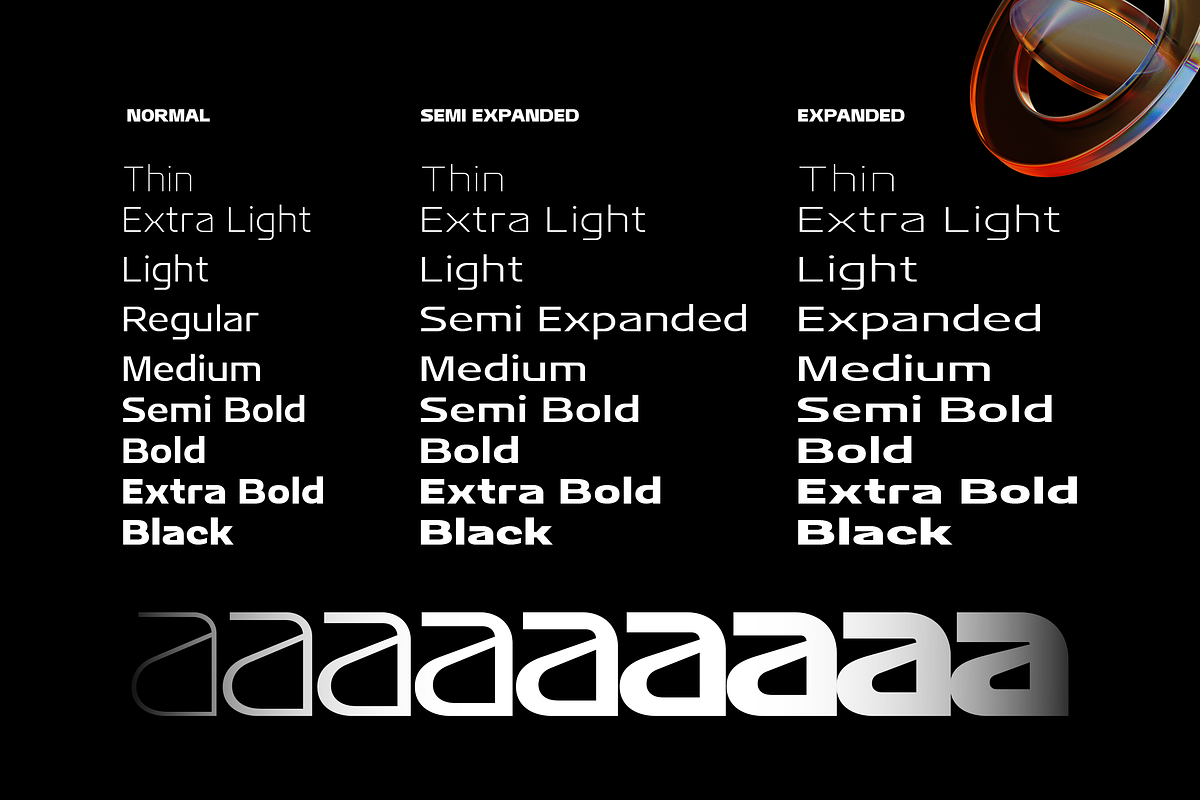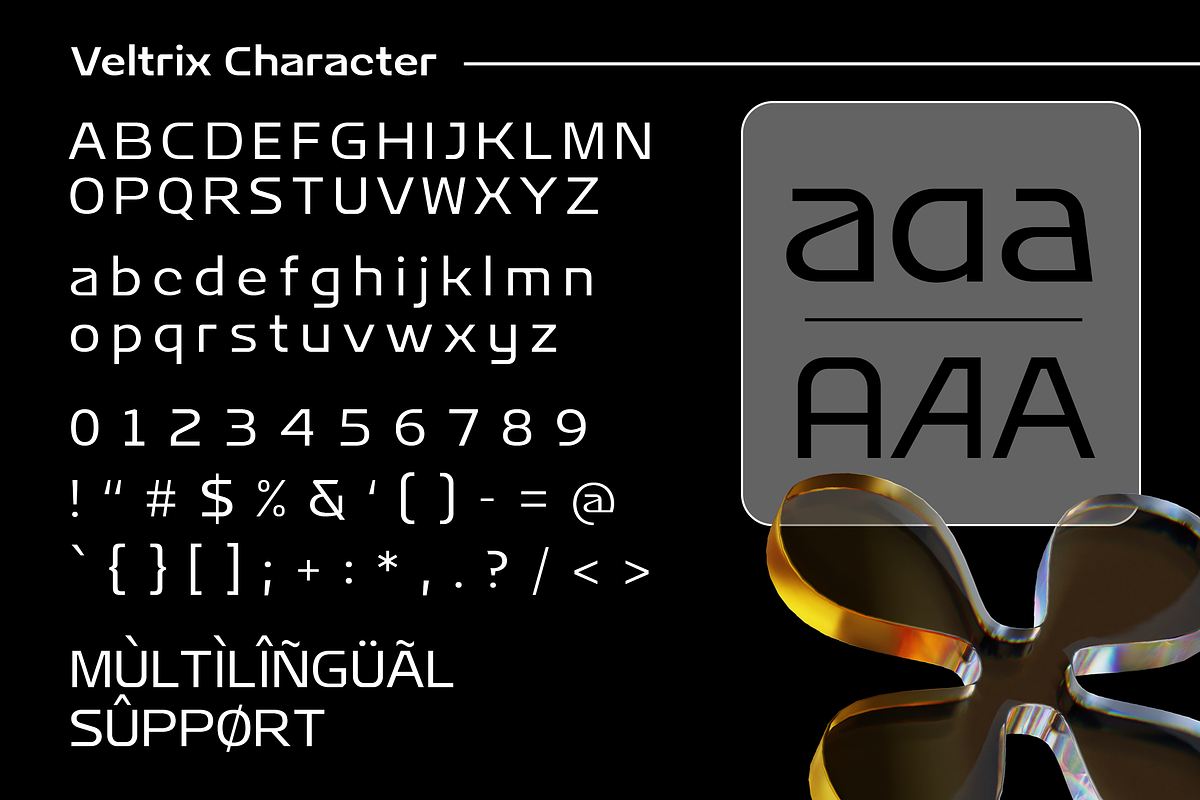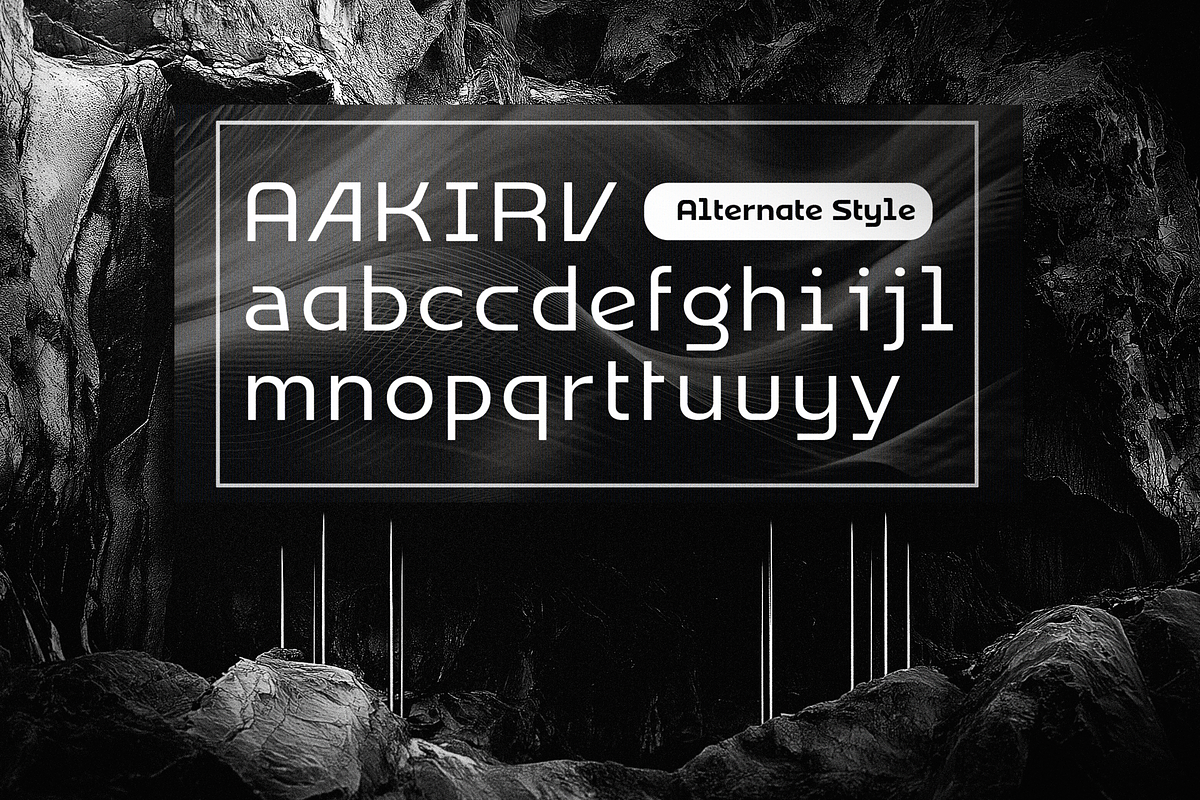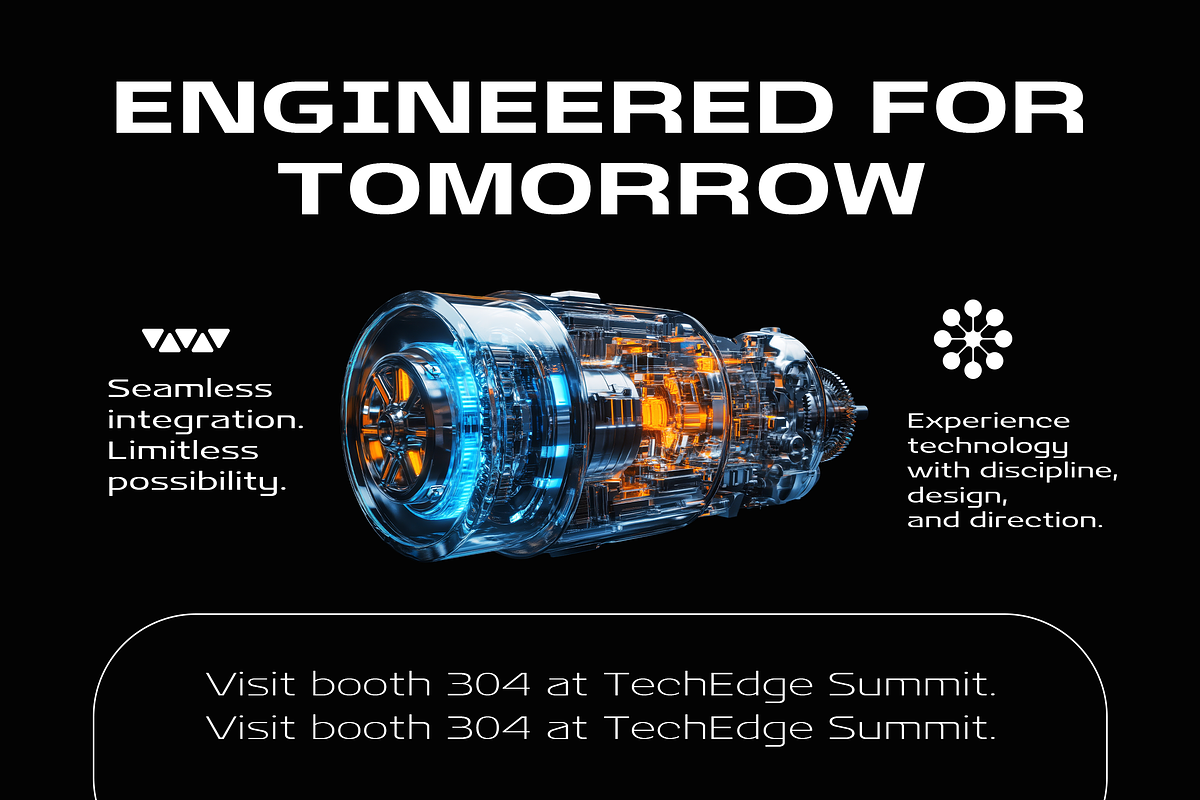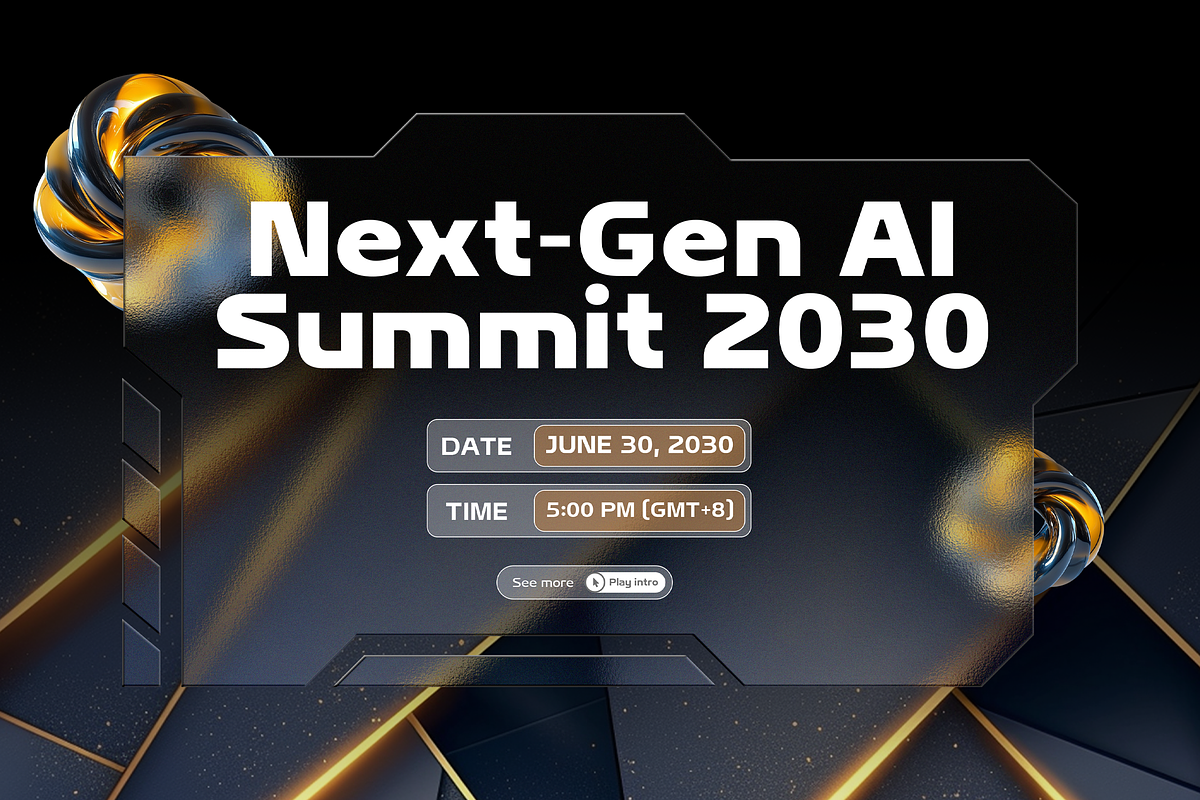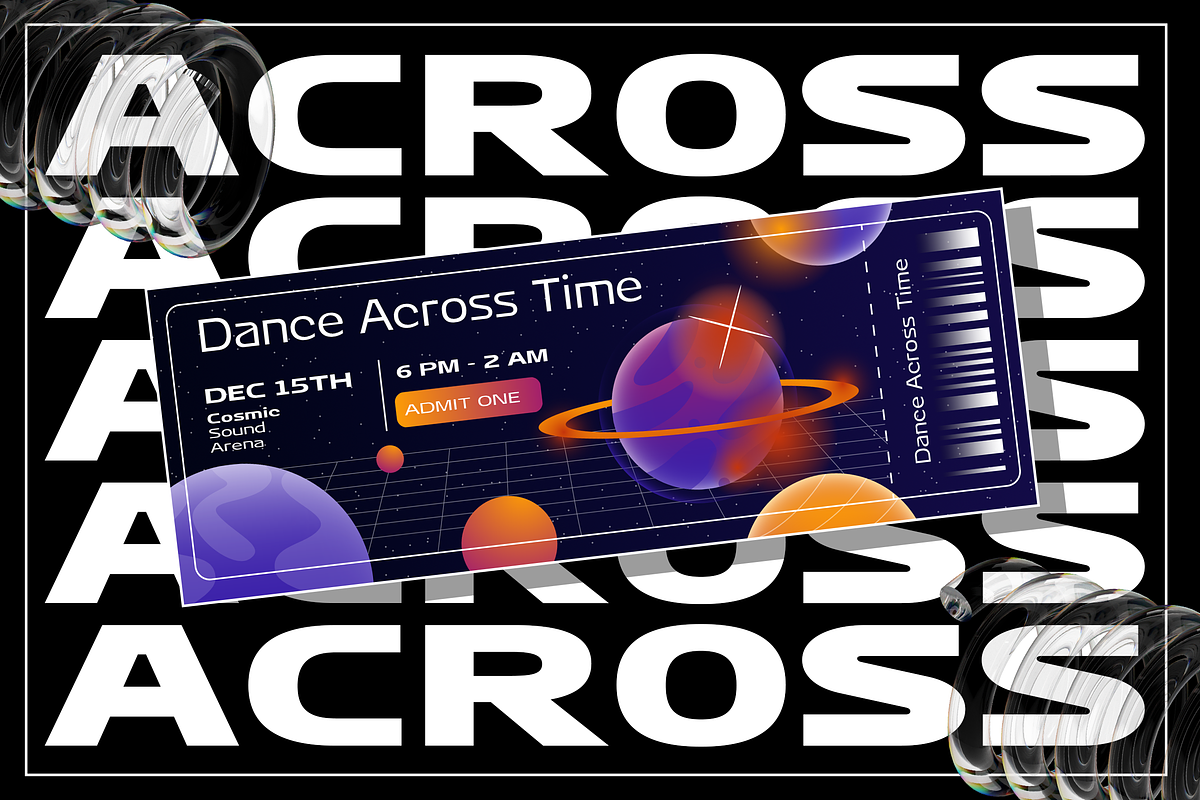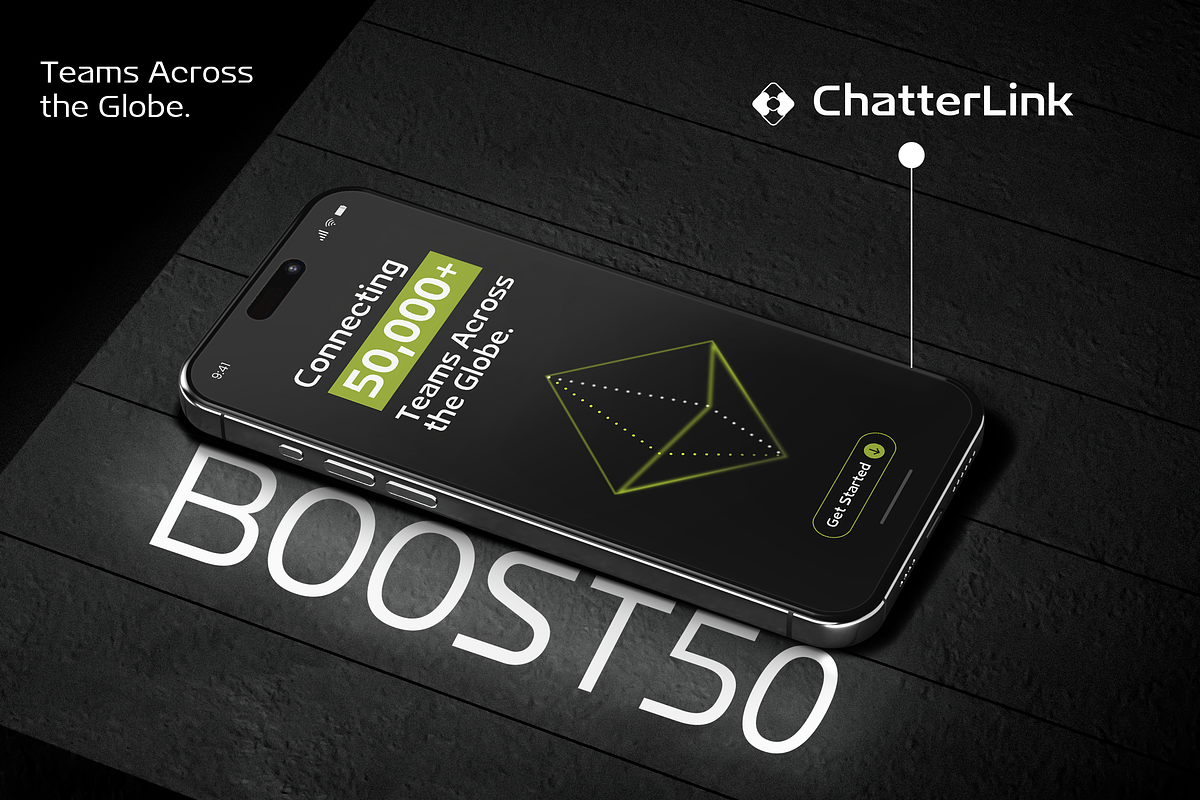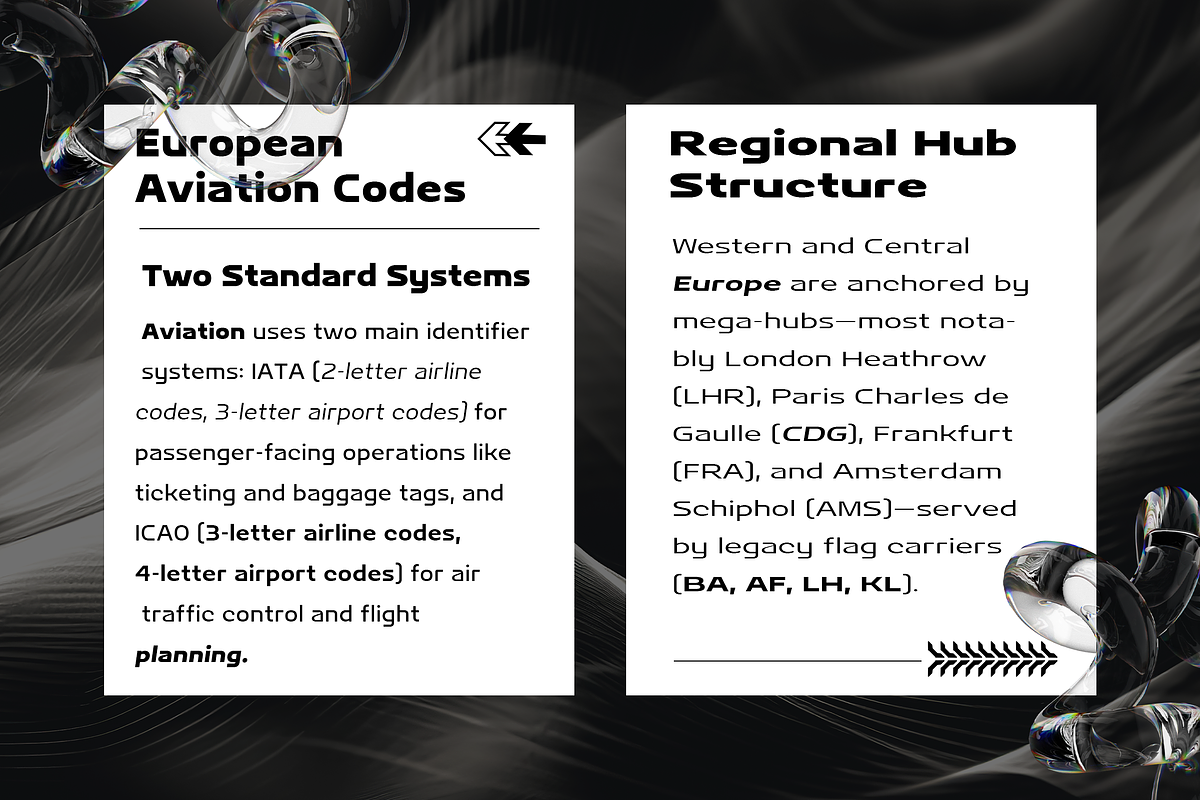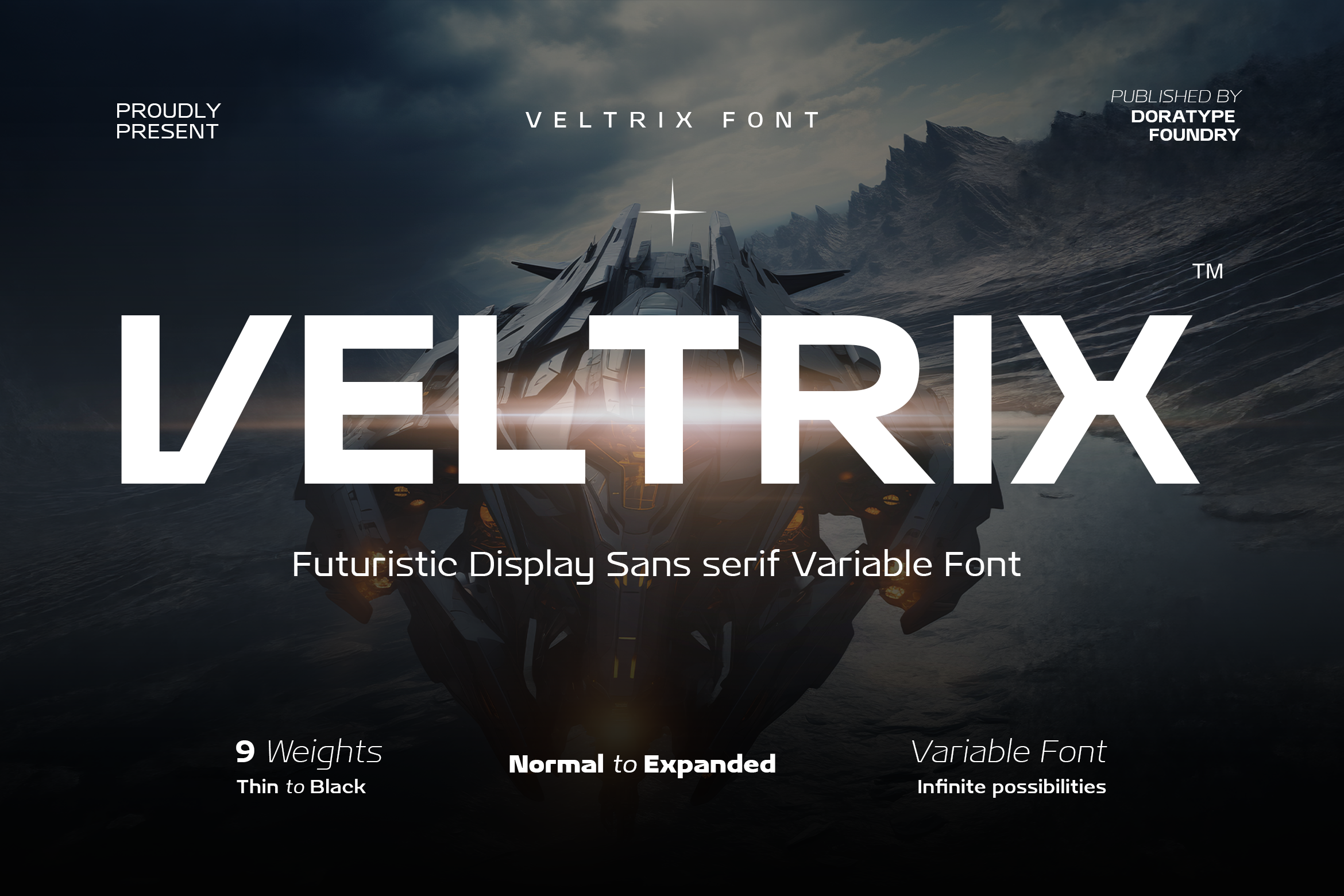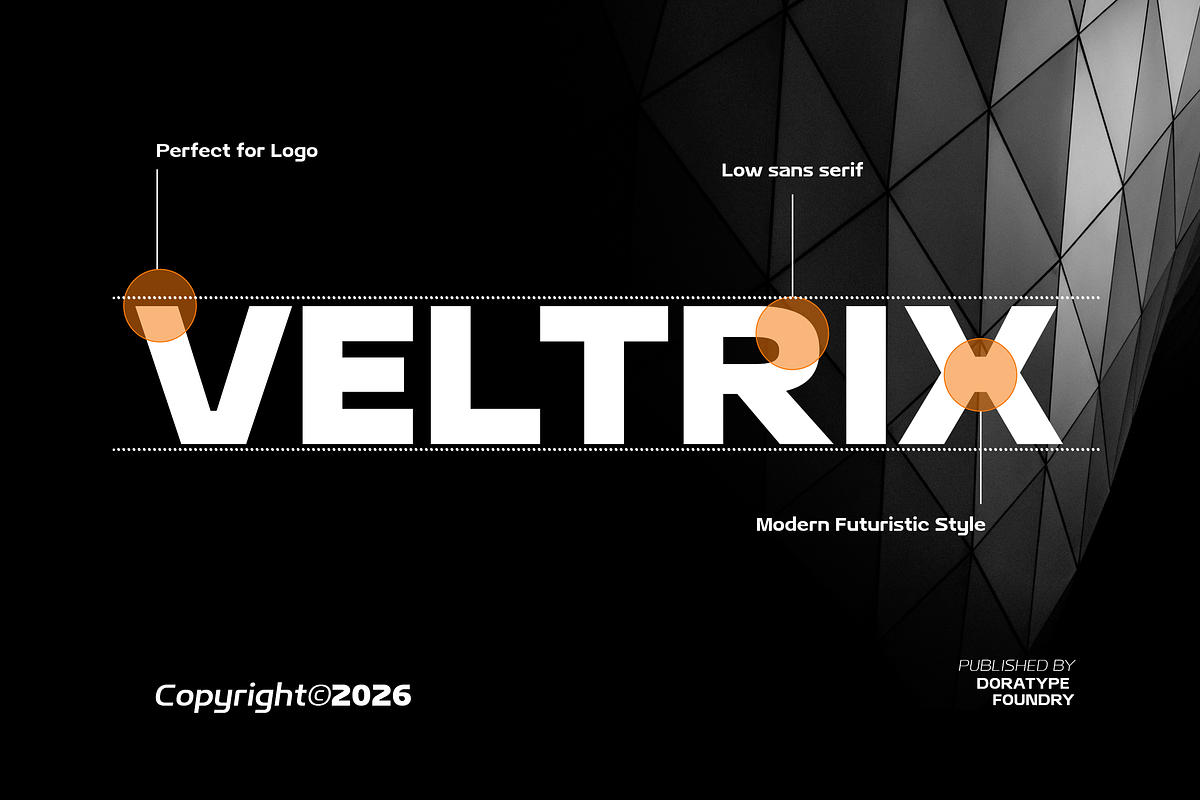
Veltric - Futuristic Display Font
VELTRIX is a futuristic sans-serif display font characterized by a modern, bold, and progressive aesthetic. Its letterforms feature a robust geometric structure, expansive proportions, and visual details that evoke themes of technology, speed, and innovation. The clean yet daring design ensures the typeface stands out with a strong, contemporary visual identity.
With support for various weights and great versatility, it offers extensive design possibilities—ranging from light, minimalist looks to bold, commanding styles. This font is ideal for futuristic branding, technology, automotive, and gaming applications, as well as posters, editorial design, product identity, and any creative project requiring a modern, premium, and visionary feel.